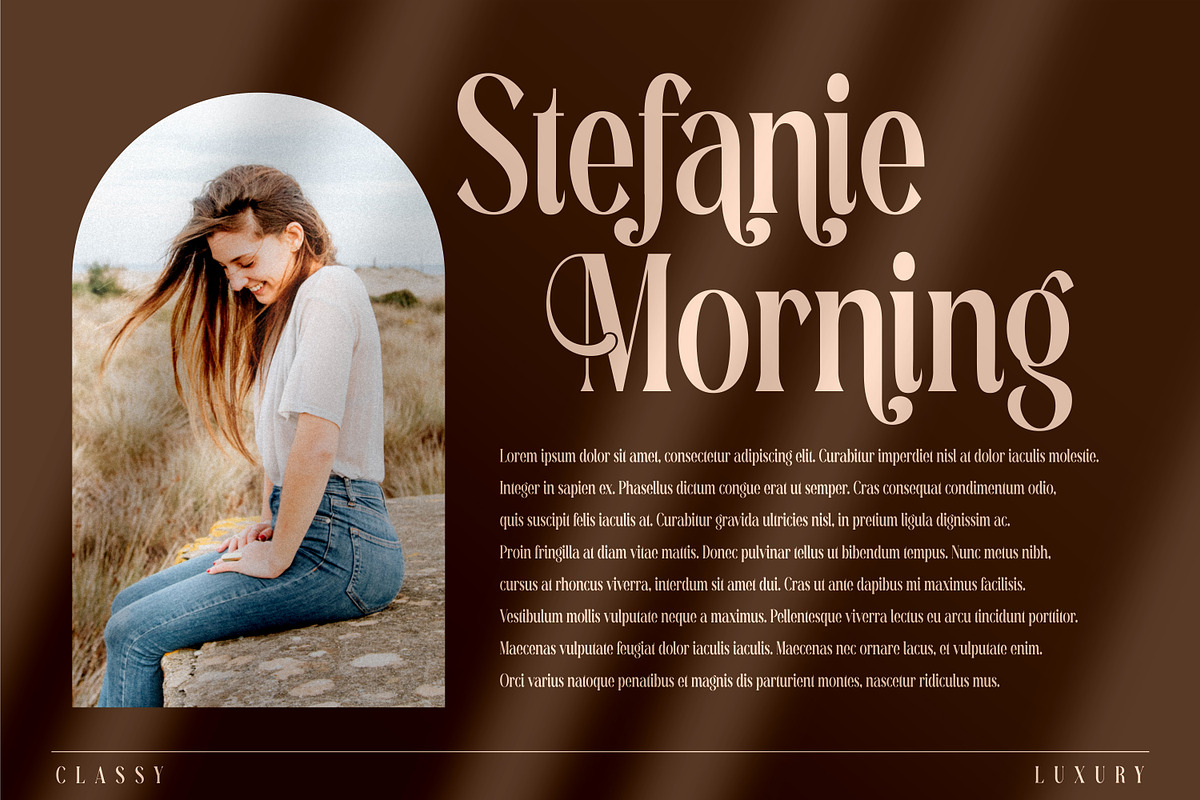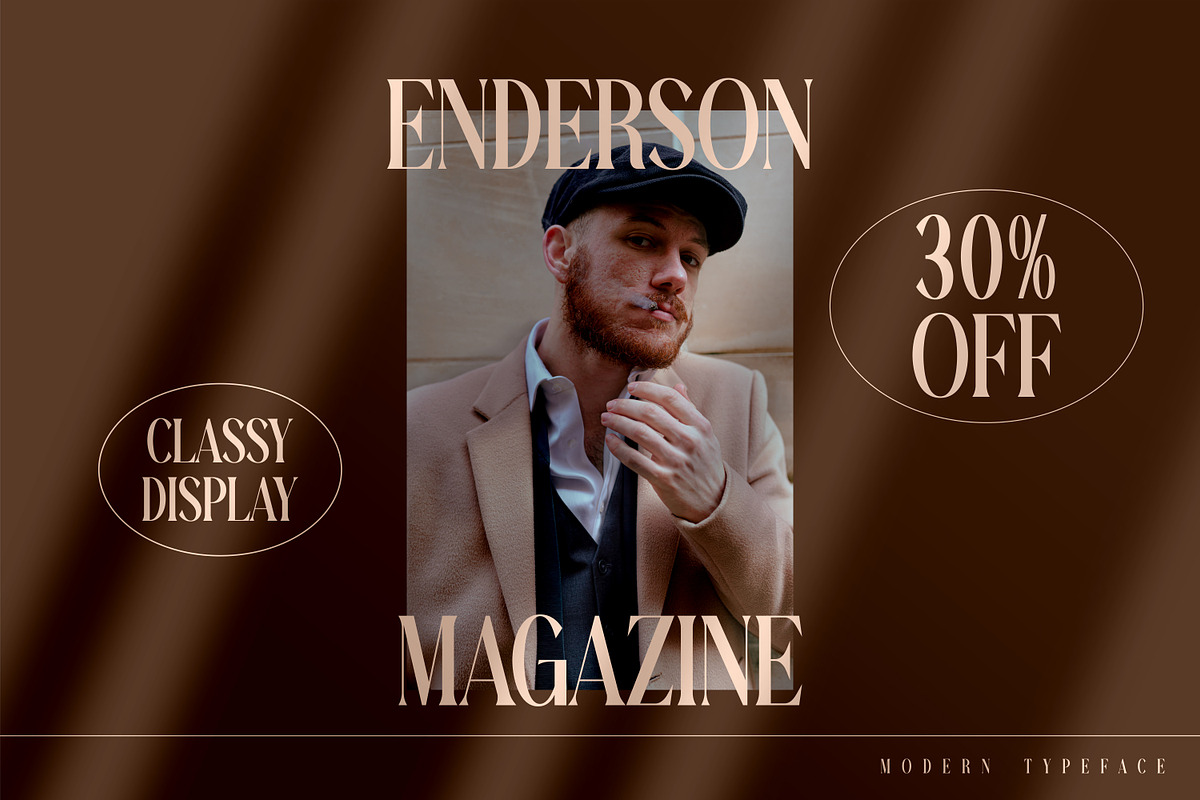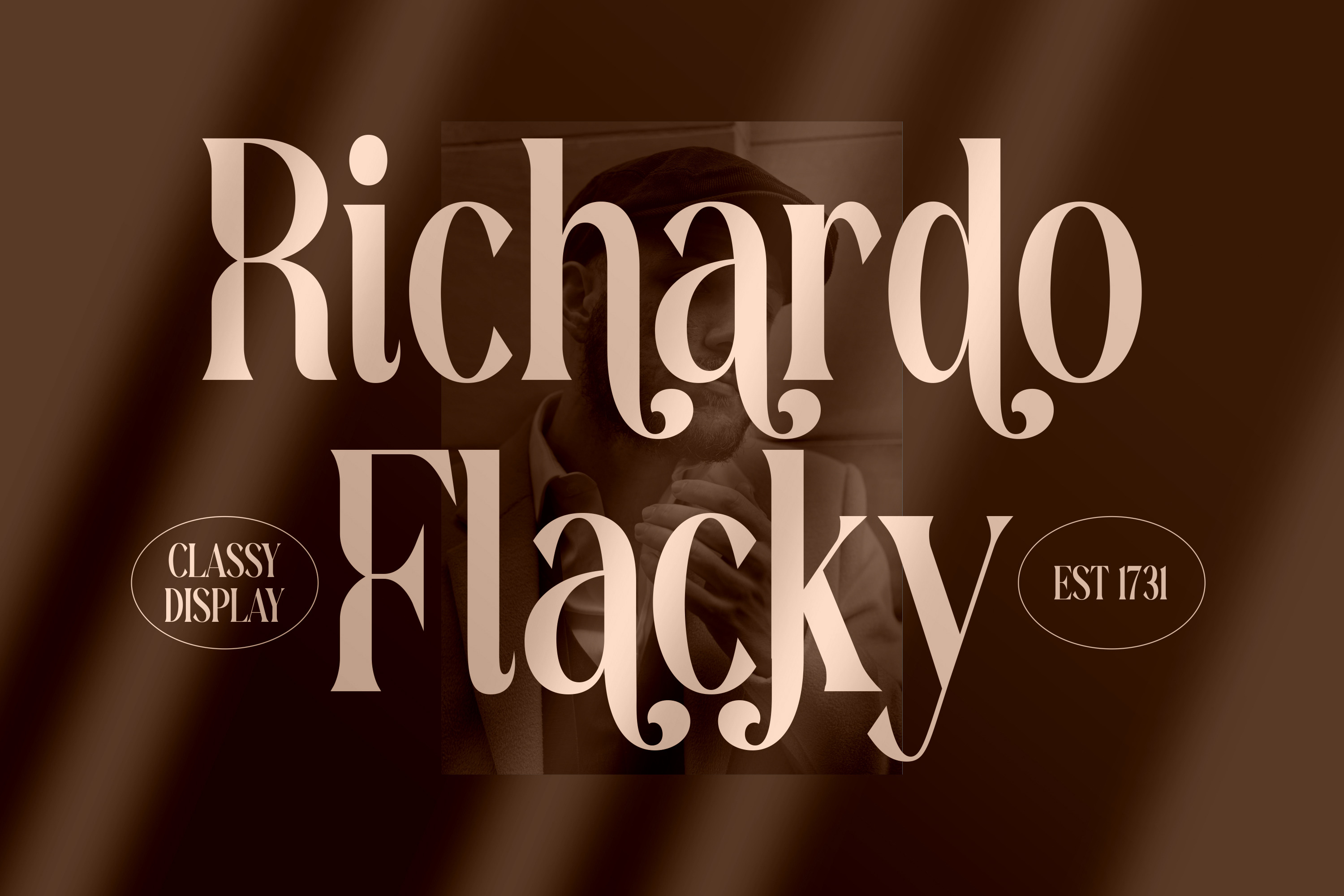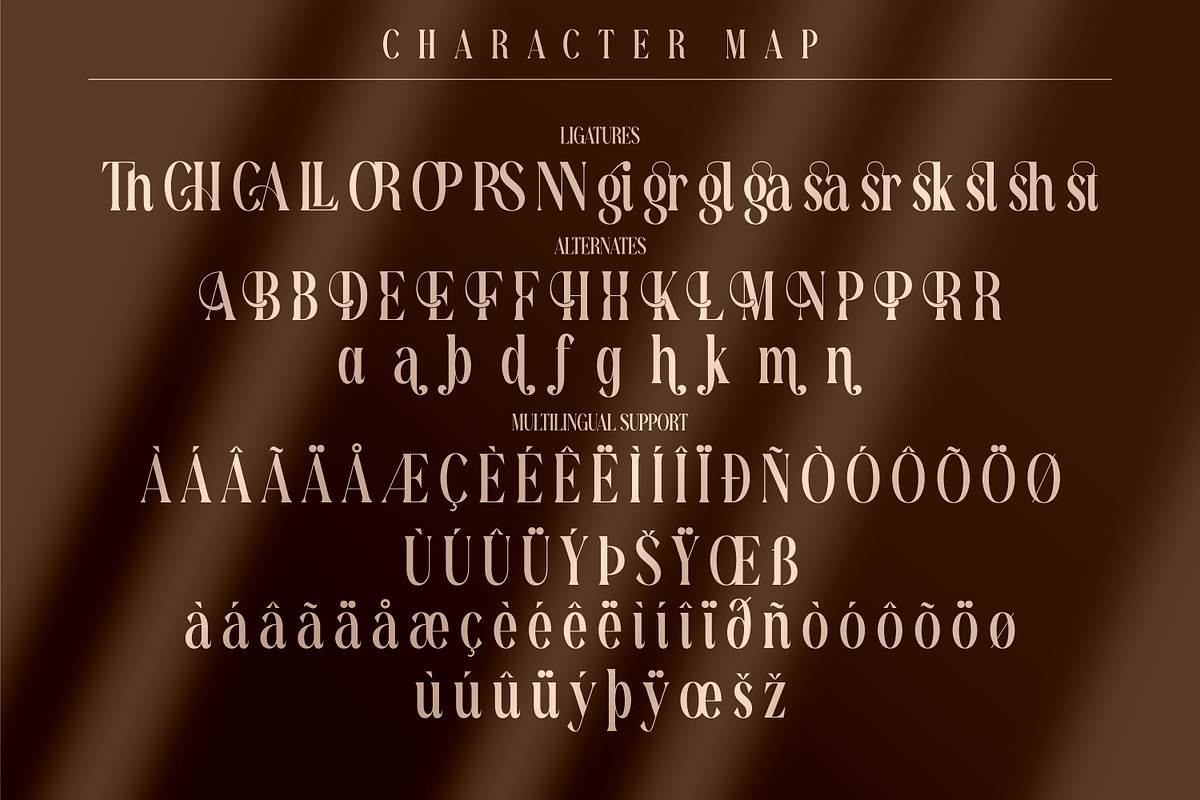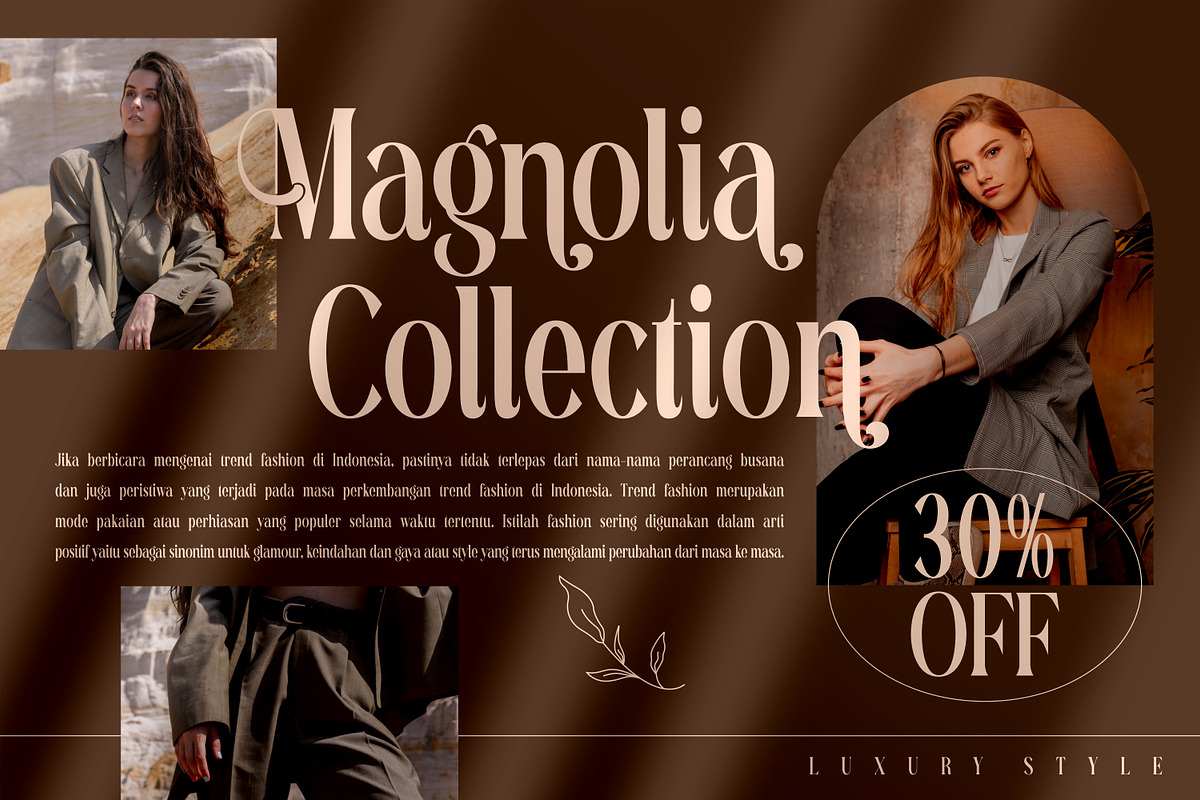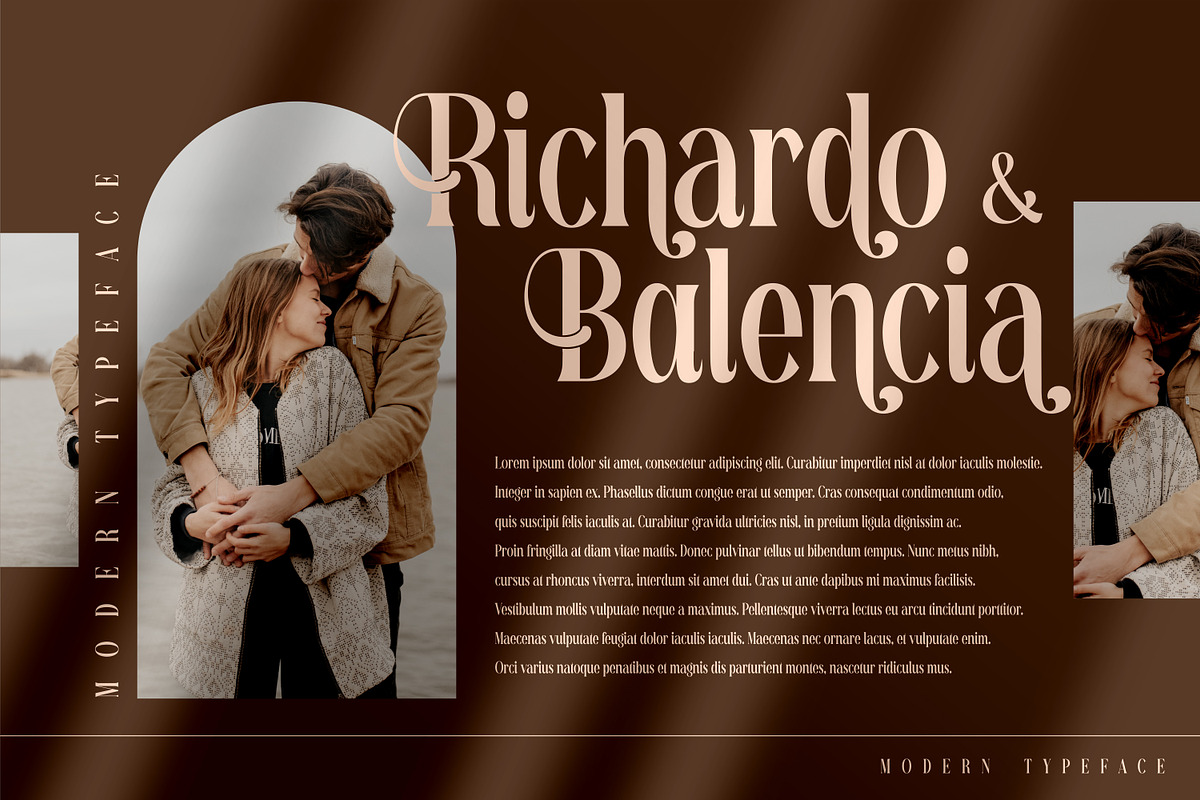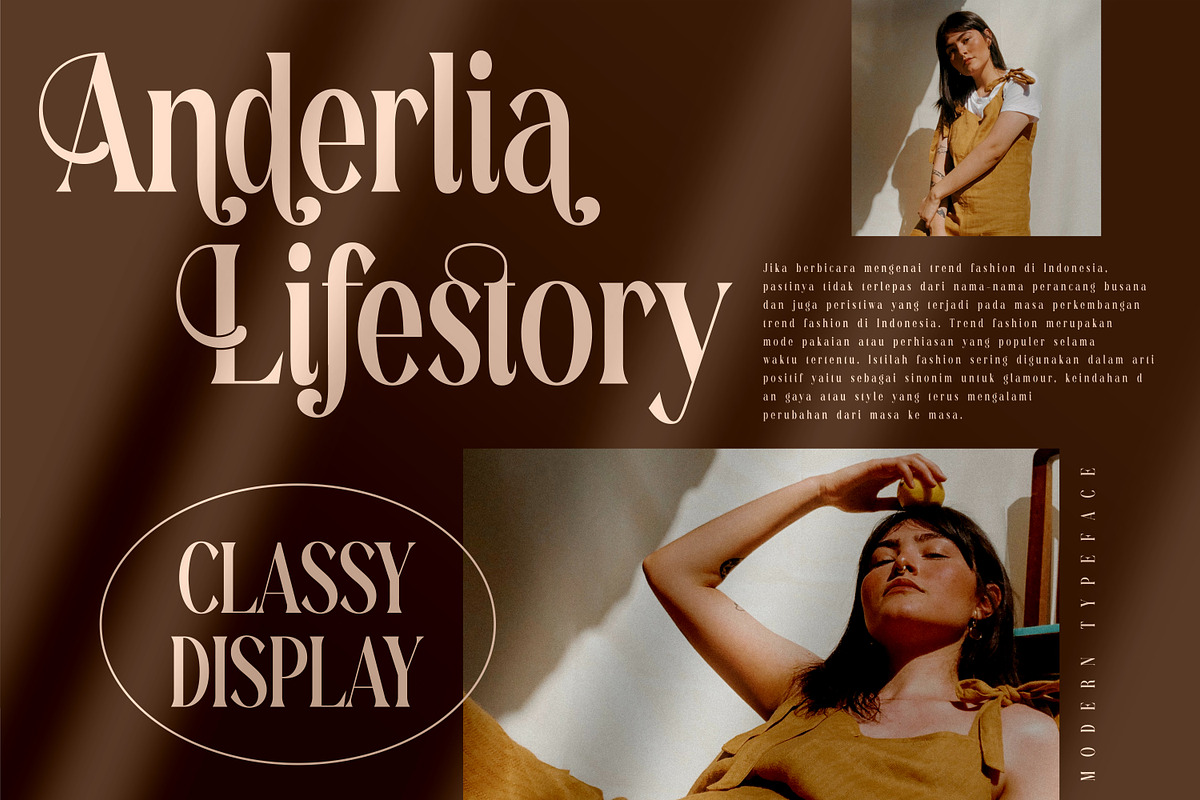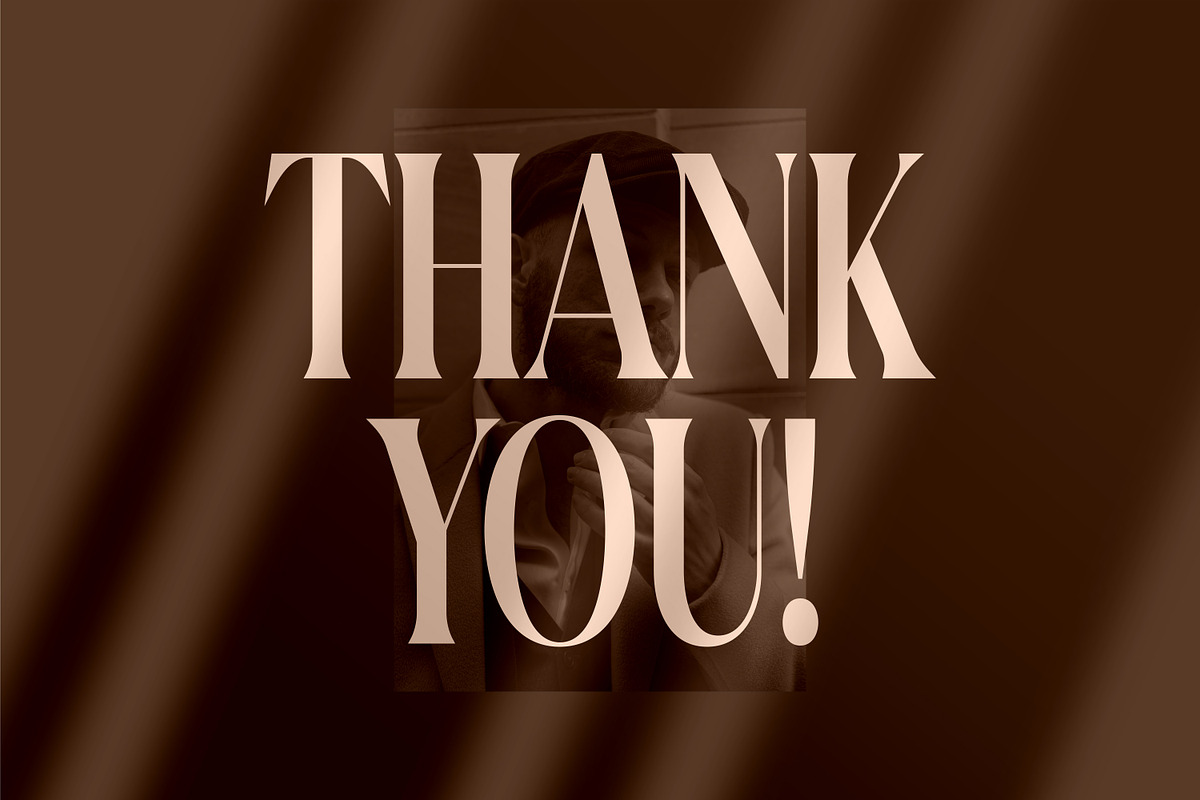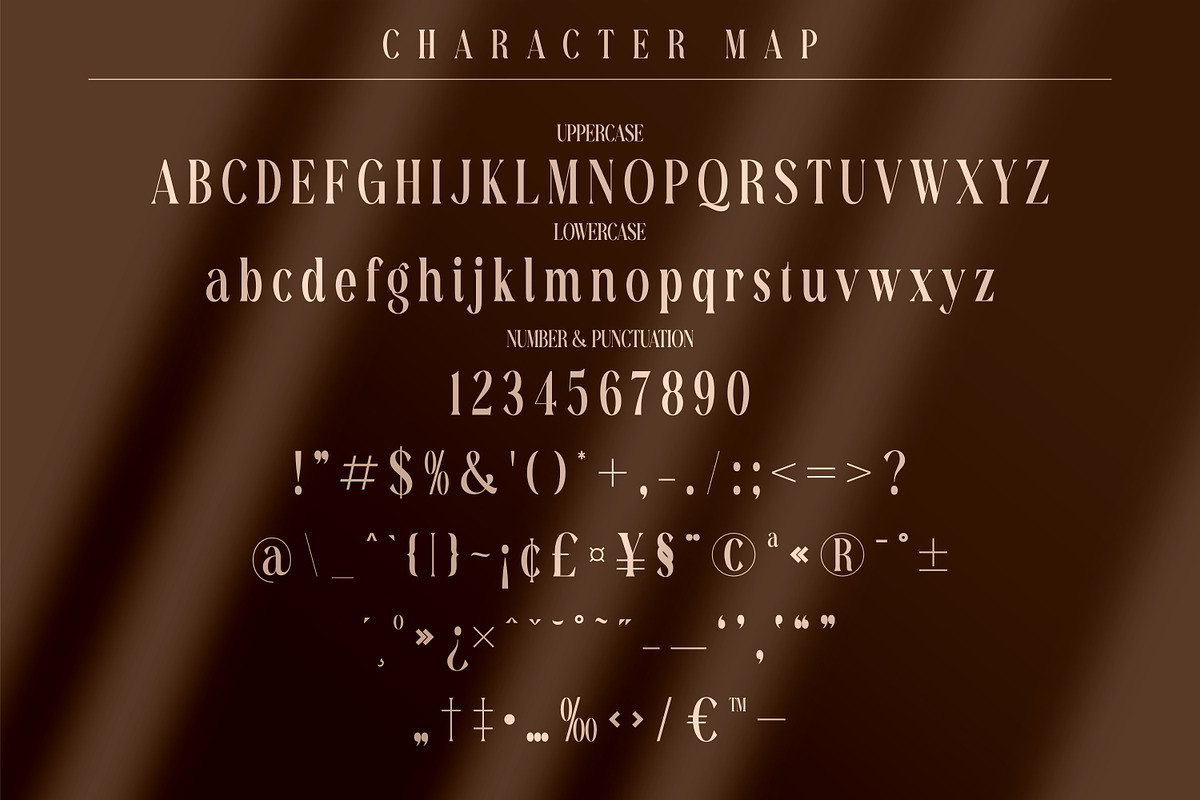
Richardo Flacky Premium Font
Proudly present Richardo Flacky Typeface, created by Storytype, A serif modern and classic typeface that has own unique style & modern look. This typeface is perfect for an elegant & luxury logo, book or movie title design, fashion brand, magazine, clothes, lettering, quotes, and so much more.